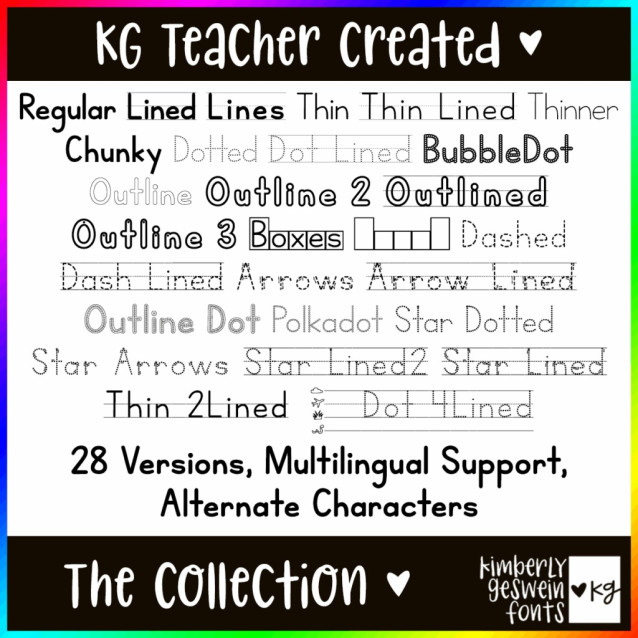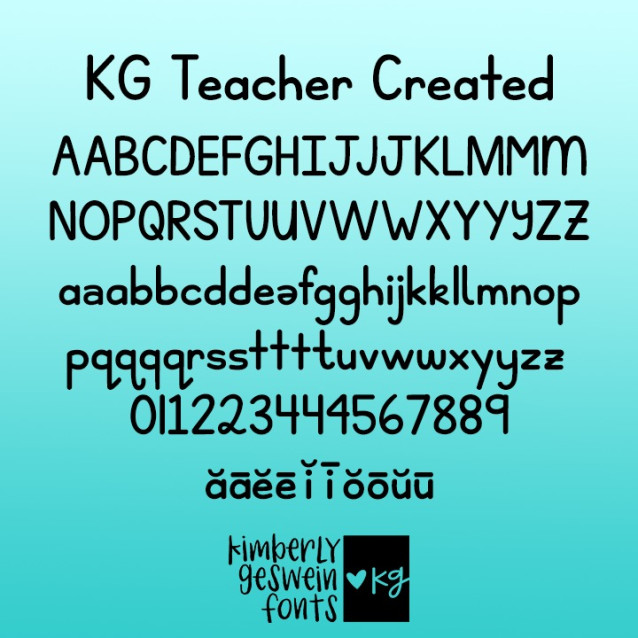
KG Teacher Created Font
KG Teacher Created Font – The KG Teacher Created Collection is perhaps the ultimate teacher font collection. Each of the 28 versions of the font was created to help teachers in some way- from letter boxes to dots to dashes to everything in between, this collection gives teachers freedom and creativity to create what they need for their classroom and beyond. Please see the enclosed PDF guide for tips on using the fonts. Hundreds of teachers gave input on this collection and it is truly formed with their expertise as my guide. I appreciate each and every teacher who contributed in some way to this collection. The KG family is better because you are a part of it!